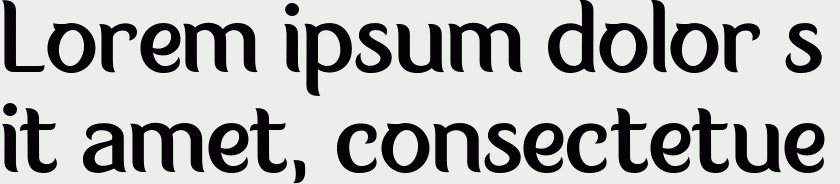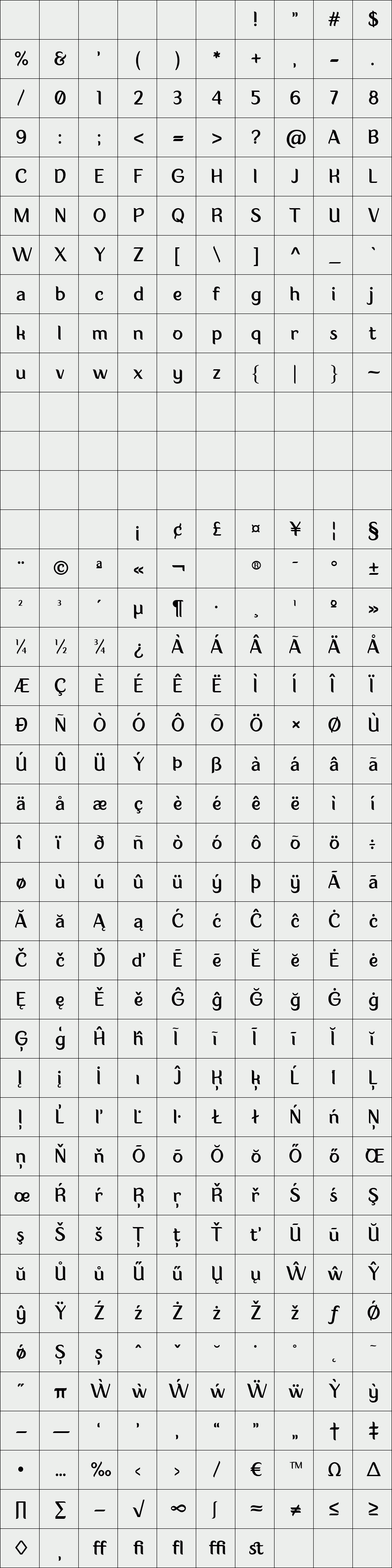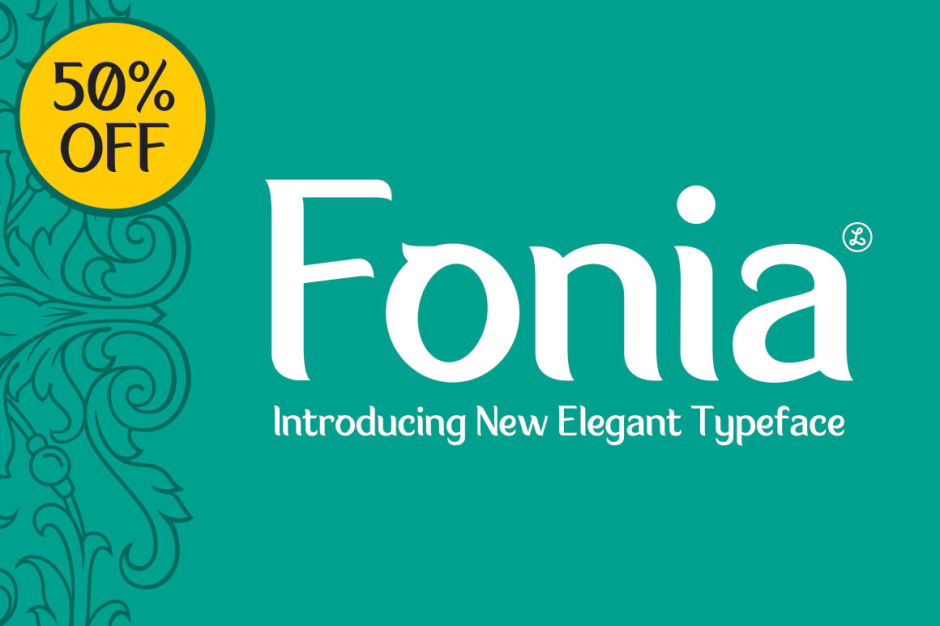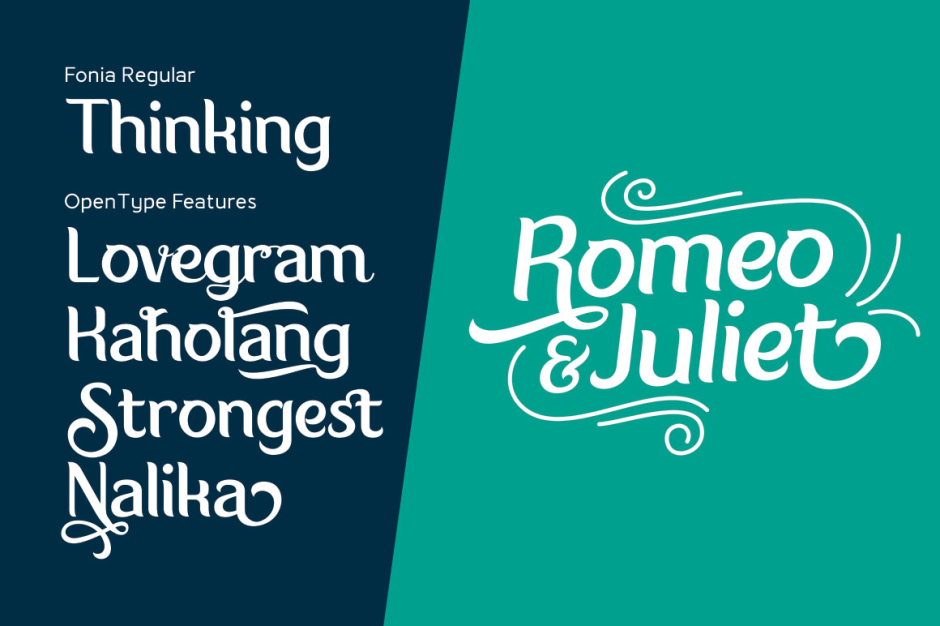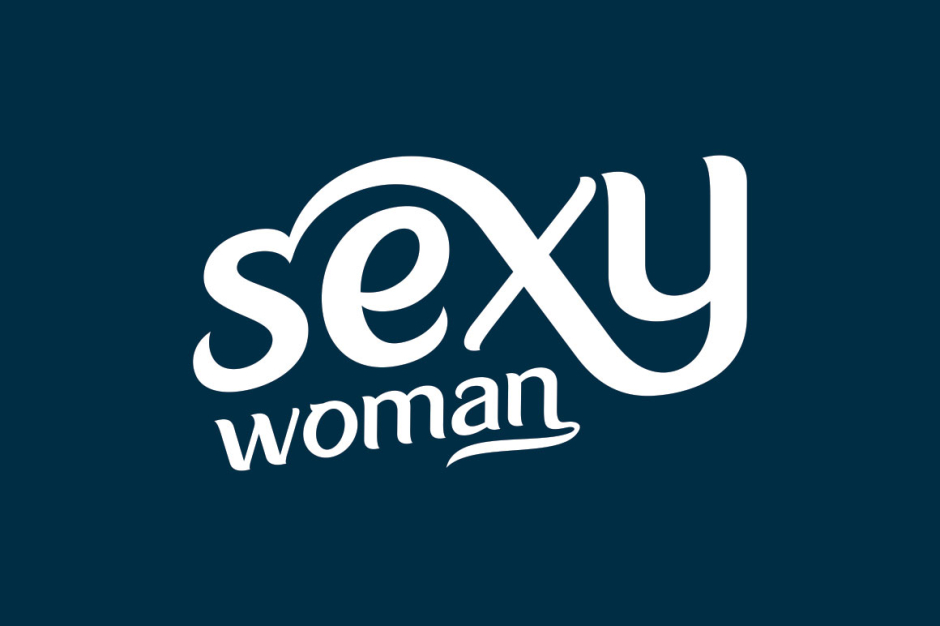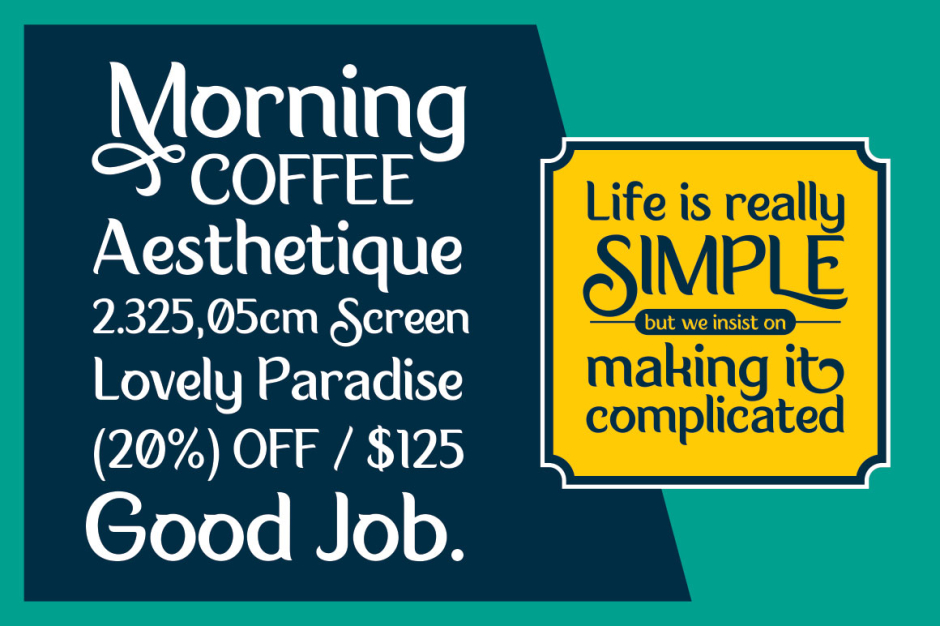
Fonia
Fonia is a calligraphic art deco with feminine touch, unique, and exotic. It is designed to be more simple, so it keeps the legibility in different font sizes. If you want a semi-classical letters but do not eliminate the modern concept, then it is time for you to have Fonia.
Opentype features that brought by Fonia will make you easier to be creative. Stylistic alternates, cool swash, ligature, and contextual alternates allow you to mix and match to create a rich and beautiful design. With Fonia, you can create an attractive packaging design, wedding invitations, wine labels or great packaging of beauty products. That will be a really cool design.